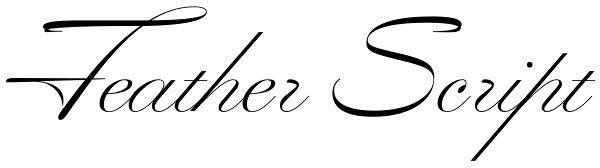
Feather Script
Introduced by Lettering Inc in the mid 1940s, this majestic handwritten advertisers script was originally developed by the talented bullpen of Chicago based Lettering Inc. Originally designed as display handlettering for department store catalogs...